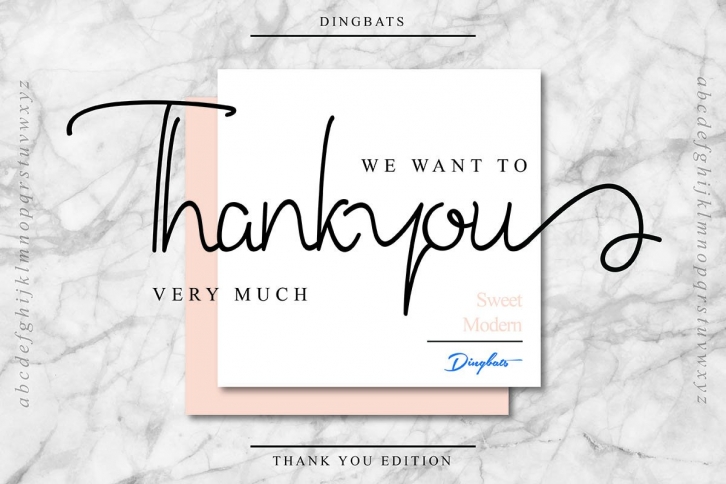
Thank You Dingbats is a collection to express 'thank you' in many ways, with cute decorations and symbols. Express yourself better with Thank You Dingbats in your art works or projects. Features 26 Dingbats from A-Z.